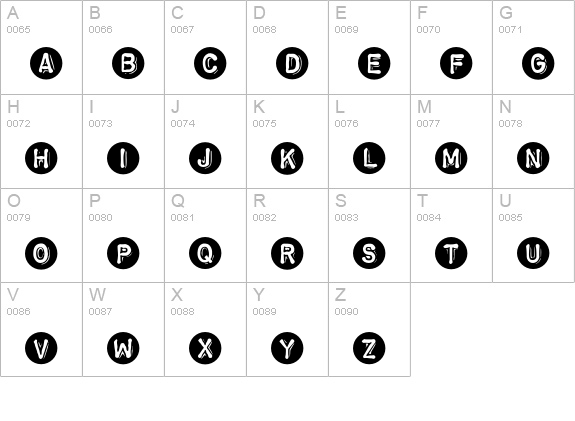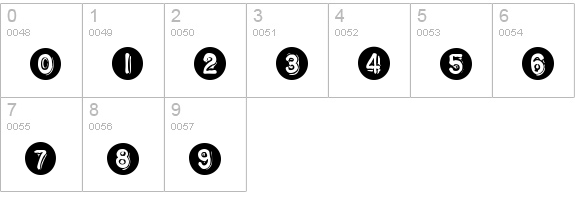
Dingos Font Details
Introducing Dingos font - a playful and versatile typeface perfect for adding a touch of whimsy to your design projects. With its charming and quirky appearance, Dingos is sure to capture attention and inject personality into your creations. This unique font features a delightful mix of rounded edges and bold strokes, making it stand out in any application. What's even better is that Dingos font is completely free to download at FontsMarket.com! Yes, you read that right - you can easily access this fun and eye-catching font at no cost. Whether you're working on branding, invitations, posters, or any other creative project, Dingos font is here to elevate your designs with its cheerful and distinctive style. Don't miss out on the opportunity to enhance your work with this free and delightful font - download Dingos today at FontsMarket.com!